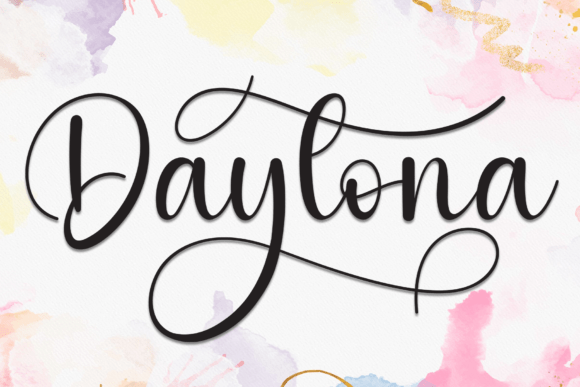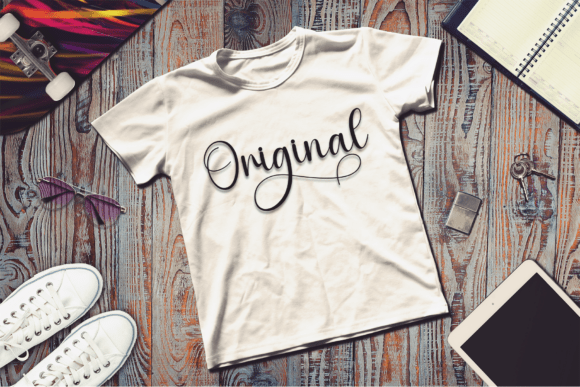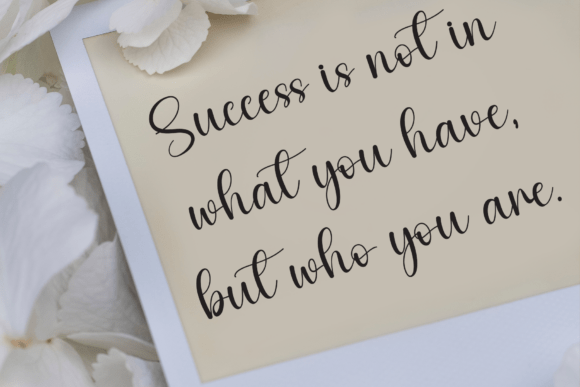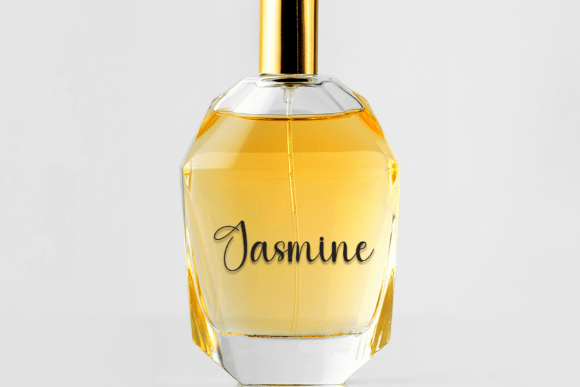
Daytona Font
About the Daytona Font
Add a touch of class to your work with the Daytona Font, a truly exceptional typeface. Daytona is a stylish handwritten script font that combines elegance with a modern flair. Its flowing strokes and organic curves bring warmth and sophistication to any project. Ideal for branding, invitations, and social media, this typeface adds a personal, refined touch with effortless charm.
Daytona’s elegant yet modern feel makes it particularly well-suited for branding projects requiring a touch of sophistication, particularly logos, short taglines, and invitations. It also works beautifully for social media graphics and short-form content where its stylish script adds visual appeal. However, its handwritten nature makes it less suitable for large blocks of text or body copy in books or websites; legibility suffers at smaller sizes.
For optimal visual harmony, pair Daytona with clean sans-serif fonts like Montserrat or Lato for a contemporary contrast. Alternatively, a classic serif like Garamond or Playfair Display could create a more traditional and luxurious pairing. Avoid pairing it with other script fonts, as this can lead to visual clutter and reduced readability.
Daytona projects a feeling of refined modernity. It is best suited to brands that value elegance, personality, and a touch of effortless charm. Think high-end fashion, boutique hotels, or artisanal food brands.
Daytona Font Usage Examples
Daytona Font Example